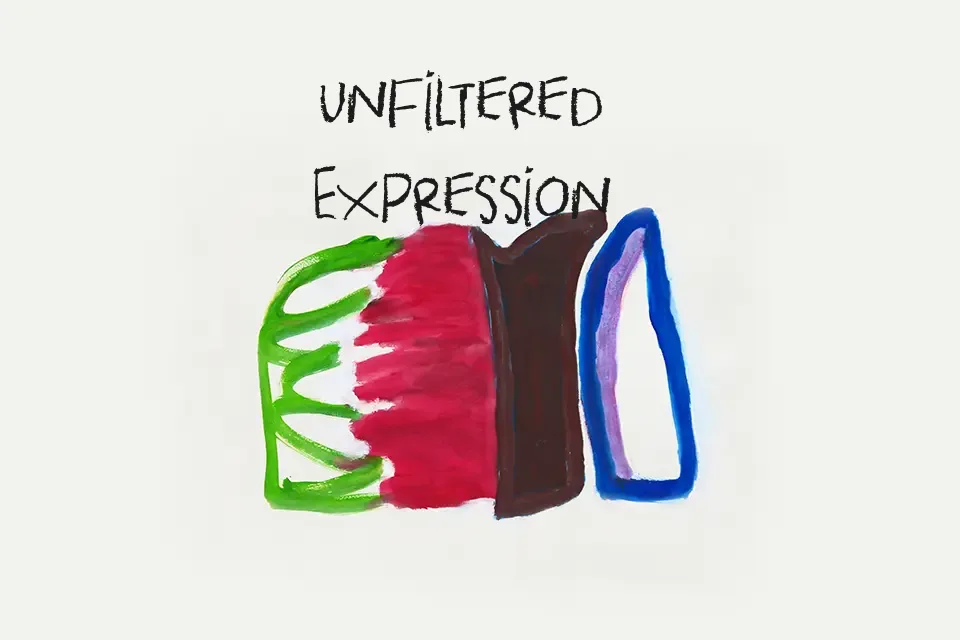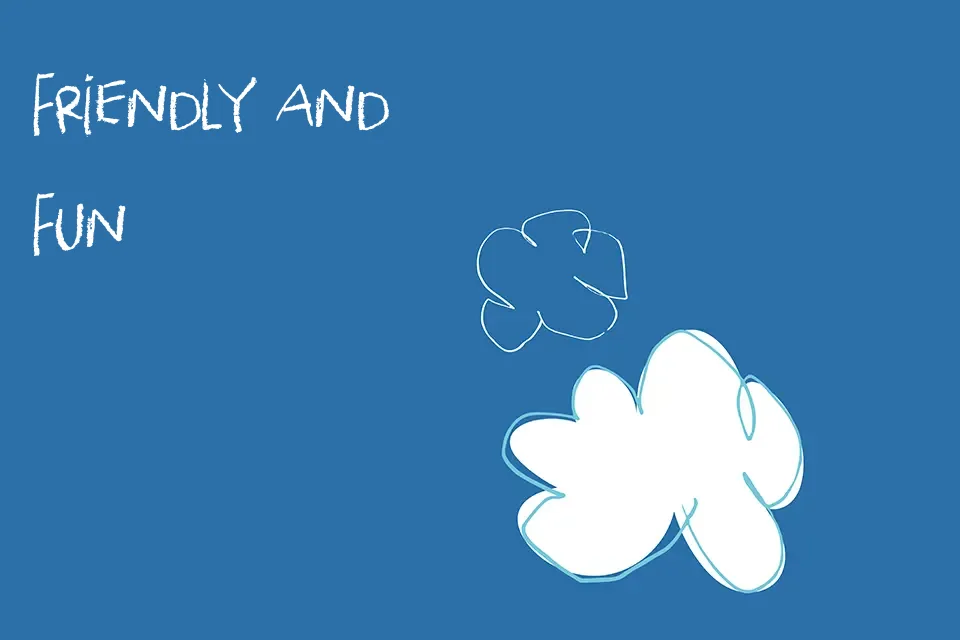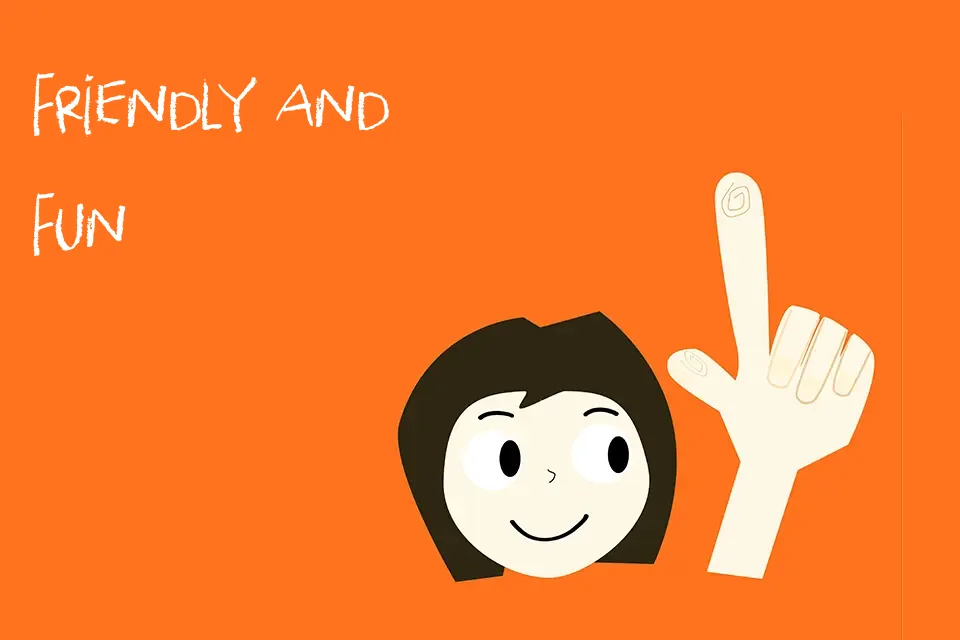
Pigeon Wing Font
Pigeon Wing is an expressive handwritten display font that captures the gritty, textured stroke of a real crayon. Its uneven baseline, heavy weight, and tight spacing create a casual, energetic structure. What makes this typeface genuinely special is its clever use of OpenType stylistic alternates—offering eight letter variations that automatically cycle as you type. This completely avoids the artificial, repetitive look of most digital handwriting.
It excels in lively projects like children’s book covers, organic snack packaging, and imaginative event posters, where its rough edges bring friendly charm. However, the heavy, irregular texture means it struggles as small body text or in strict corporate branding, where sharp lines and high legibility are essential.
Playful product packaging
Children’s book covers
Energetic event posters
Organic snack branding
Small dense body copy
Minimalist corporate logos
Formal financial document
Perfect for branding, kids, and packaging, with a creative and cartoon style.